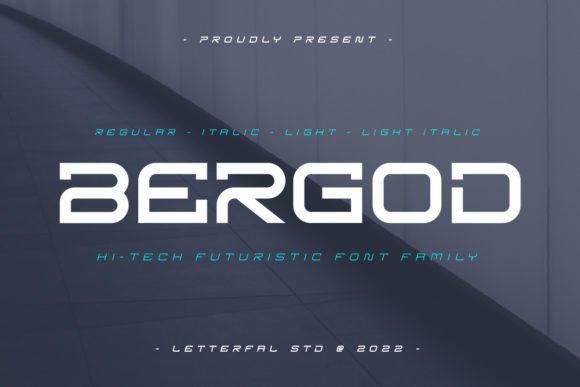
The Perfect Blend of Modernity and Futurism: Introducing the Bergod Sans Serif Font
Have you ever stared at a sleek, futuristic interface and felt a rush of creative excitement? For designers, it’s that moment of inspiration that sparks the next big project. And for those who crave a font that embodies the essence of cutting-edge technology, look no further than the Bergod Sans Serif Font.
Bergod Sans Serif Font is a bold and modern display font that’s perfect for making a statement in the world of design. With its geometric corners and futuristic edge, it’s an ideal choice for logotypes, posters, titles, and any other project that demands attention.
What makes Bergod Sans Serif Font so valuable to designers is its versatility and ability to elevate any design to new heights. Whether you’re working on a futuristic sci-fi project or a high-tech startup, this font is sure to leave a lasting impression.
Bergod Sans Serif Font Review
Overall, I think the Bergod Sans Serif font has some great qualities that make it a solid choice for digital design. ✨ The font’s modern feel and clean lines give it a professional look that’s perfect for corporate websites, magazines, and other publications. ✨ The font’s high x-height also makes it highly legible, even at small font sizes. ✨ Additionally, the font’s extensive language support is a major plus for designers who work with international clients.
However, there are some limitations to the font that I think designers should be aware of. ⚠️ For one, the font’s weight range is a bit limited, with only four weights available. This can make it difficult to create complex typography hierarchies. ⚠️ Additionally, the font’s italic styles can sometimes look a bit forced, which may not be suitable for all designs.
- ✨ Modern feel and clean lines
- ✨ High x-height for excellent legibility
- ✨ Extensive language support
- ⚠️ Limited weight range
- ⚠️ Forced-looking italic styles
Despite its limitations, I think the Bergod Sans Serif font is a great choice for designers who need a clean, modern sans serif font. While it may not be the most versatile font on the market, it’s a solid option for a wide range of design applications.
Getting the Most Out of Bergod Sans Serif
For optimal results, use Bergod Sans Serif in conjunction with a clean and minimal design aesthetic. This font is particularly well-suited for digital displays, such as websites and mobile apps.
Bergod Sans Serif is ideal for:
- Body text in digital displays
- Corporate branding and identity
- Minimalist and modern design projects